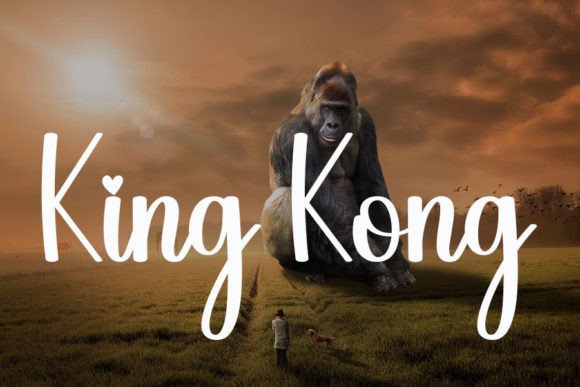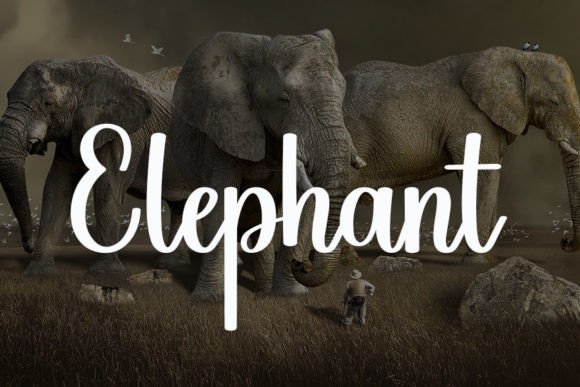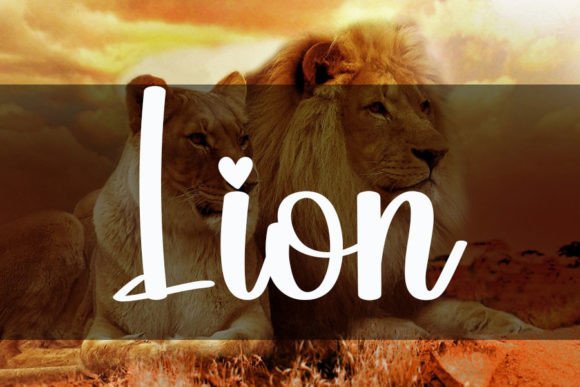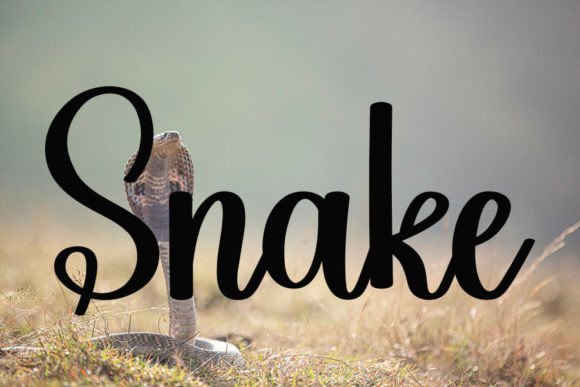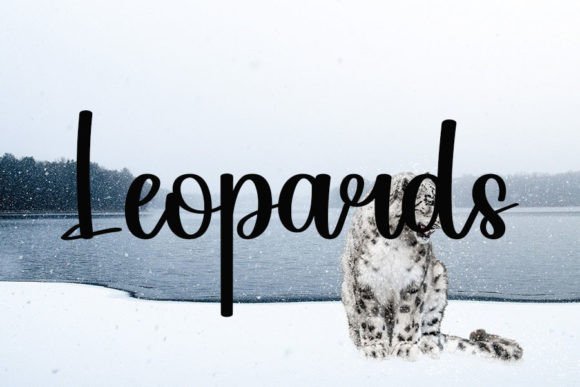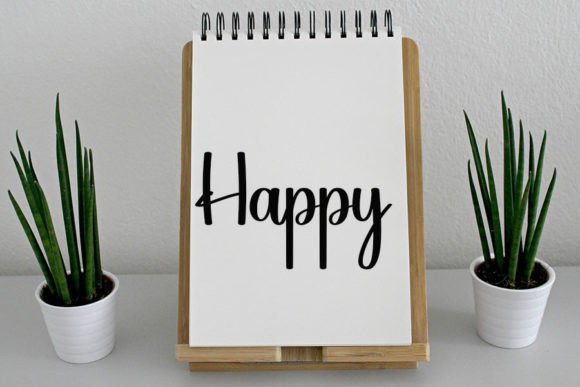
The Designer’s Delight: A Deep Dive into the Giant Font
I’ll never forget the time I was working on a project for a client who wanted a elegant and timeless design. I had spent hours browsing through font libraries, but nothing seemed to fit the bill. That’s when I stumbled upon the Giant font, and it was love at first sight! ✨ The elegant touch and distinct style of this handwritten font won me over, and I knew I had to share it with the world.
An Honest Review: What I Love and What I Don’t
• ✨ Elegant and refined design that’s perfect for projects that require a touch of sophistication
• ✅ Highly legible, even at smaller font sizes
• 💫 Incredibly versatile and can be used for a wide range of projects, from branding to packaging
• 🎨 Beautifully crafted with an attention to detail that’s hard to find in other fonts
The Not-So-Good Stuff
• 🤔 Limited availability of certain characters and glyphs, which can be a bit of a challenge for some users
• ⚠️ Not the best choice for body text, as it’s more suited for headlines and titles
The Giant font comes with a range of OpenType features and glyphs that can enhance your design. These include:
• Stylistic alternates: These allow you to customize the font’s style and appearance
• Glyphs: These are special characters that can add visual interest to your text
• Ligatures: These are combinations of characters that can create a more elegant and refined look
The Story Behind Giant Font: A Designer Inspiration
The Giant font was created by a talented designer who wanted to craft a font that would be both elegant and timeless. Inspired by classic calligraphy and handwriting, the designer poured their heart and soul into creating a font that would be loved by designers and crafters alike. The result is a font that’s both beautiful and functional, perfect for a wide range of design projects.
What is the Giant font best used for? The Giant font is best used for designs that require an elegant and refined touch, such as branding, packaging, and titles.
Is the Giant font suitable for body text? No, the Giant font is not suitable for body text. It’s best used for headlines and titles.
Is the Giant font available in different styles? Yes, the Giant font comes in different styles and variations, including regular, italic, and bold.